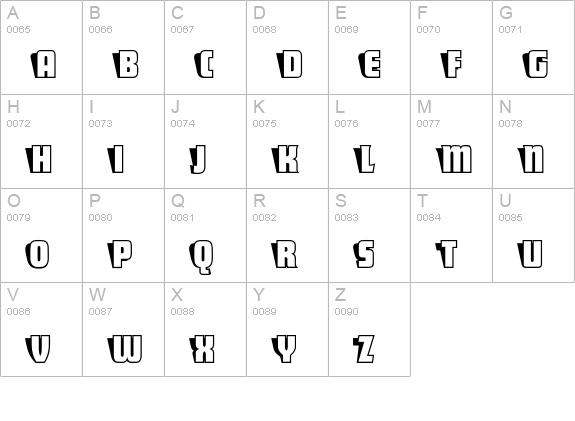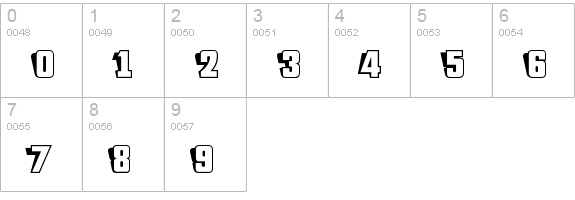
Sho-Card-Caps font is a stunning display font that exudes elegance and sophistication. With its unique and intricate design, this font is perfect for adding a touch of class to any creative project. The clean lines and bold strokes of Sho-Card-Caps font make it ideal for eye-catching headlines, logos, and branding materials. Its versatility allows it to be used in a wide range of design projects, from editorial layouts to packaging designs. One of the best features of Sho-Card-Caps font is that it is free for personal and commercial use. That means you can freely download and use this font to enhance your designs without any limitations. You can find the font available for download at FontsMarket.com. With Sho-Card-Caps font, you can elevate your designs to a whole new level. Whether you're a graphic designer, a marketer, or a creative enthusiast, this font will add a touch of sophistication to your projects. Its timeless appeal and attention to detail make it a must-have in any font library. So, why wait? Download Sho-Card-Caps font now from FontsMarket.com and unleash your creativity with this stunning display font.